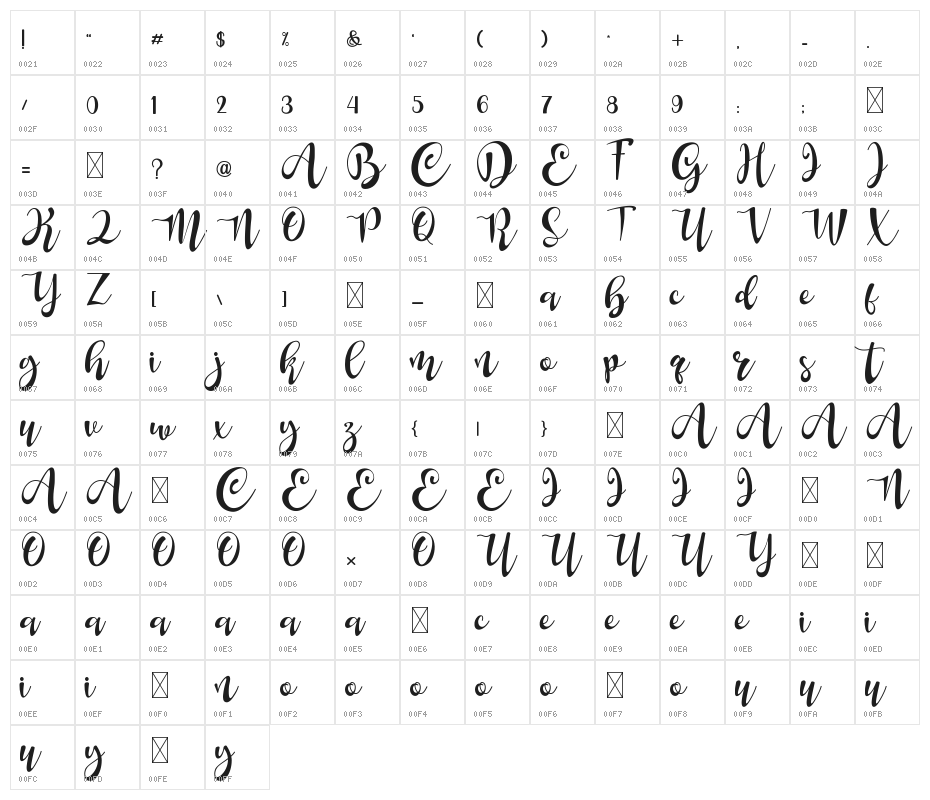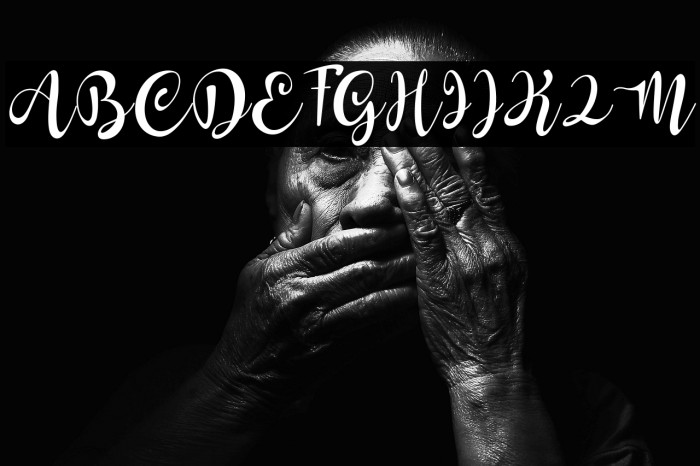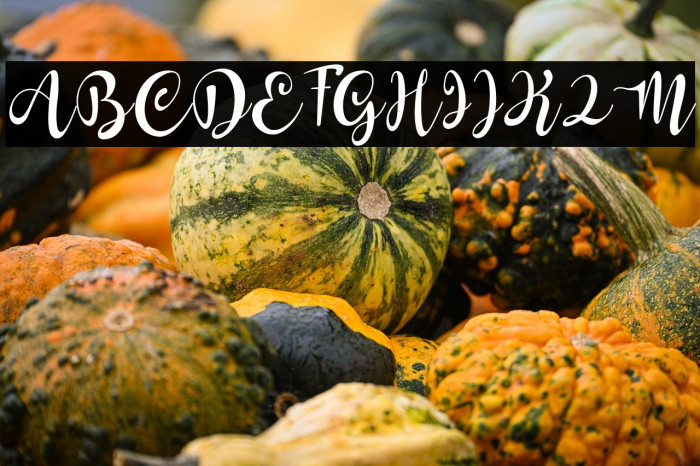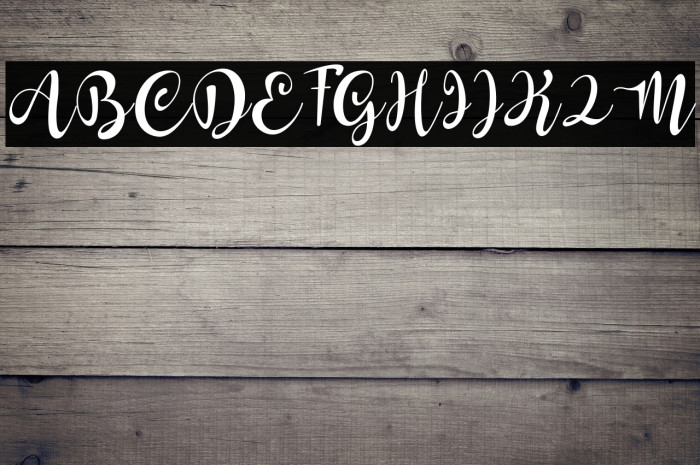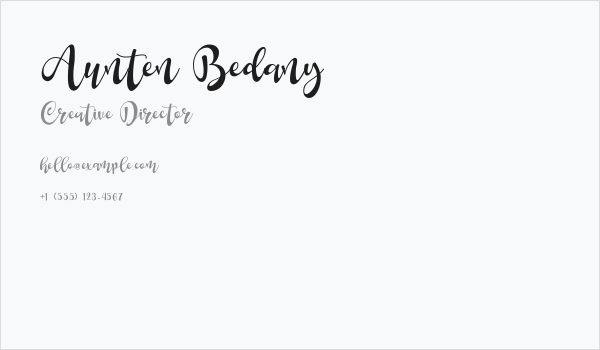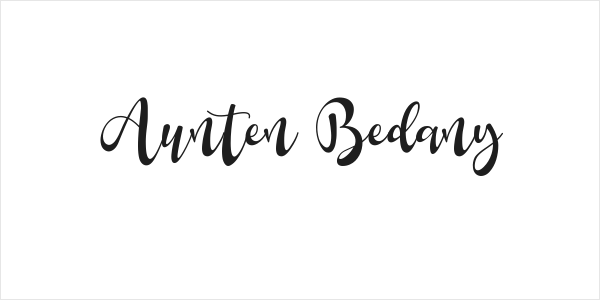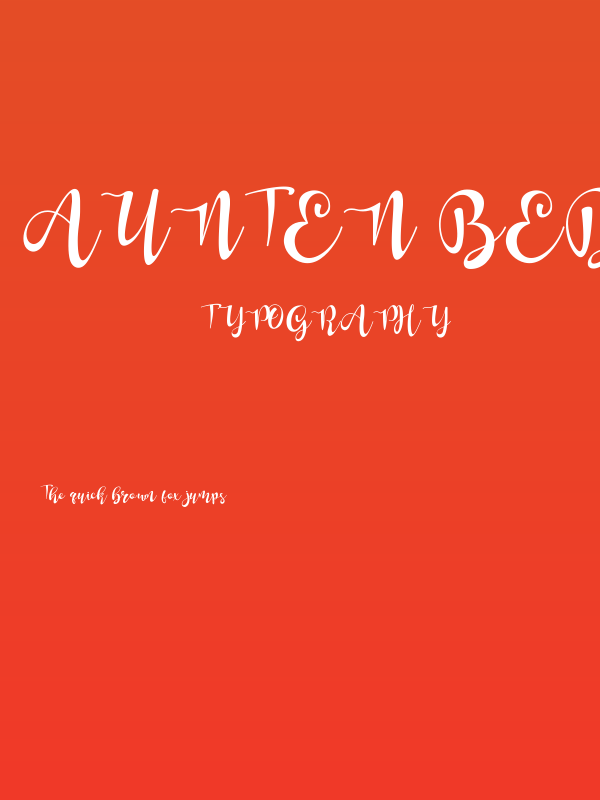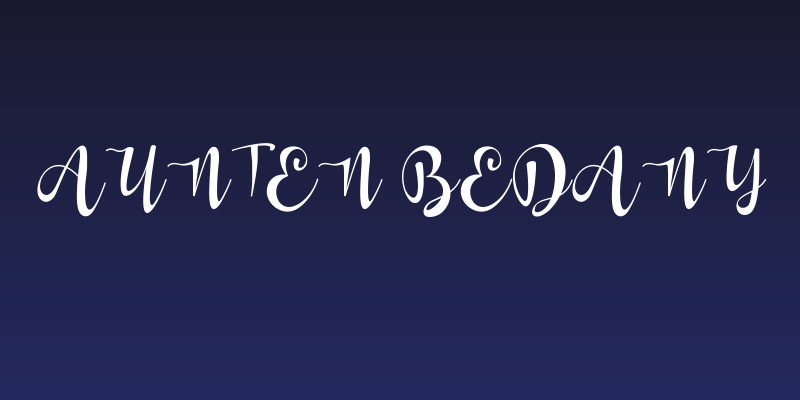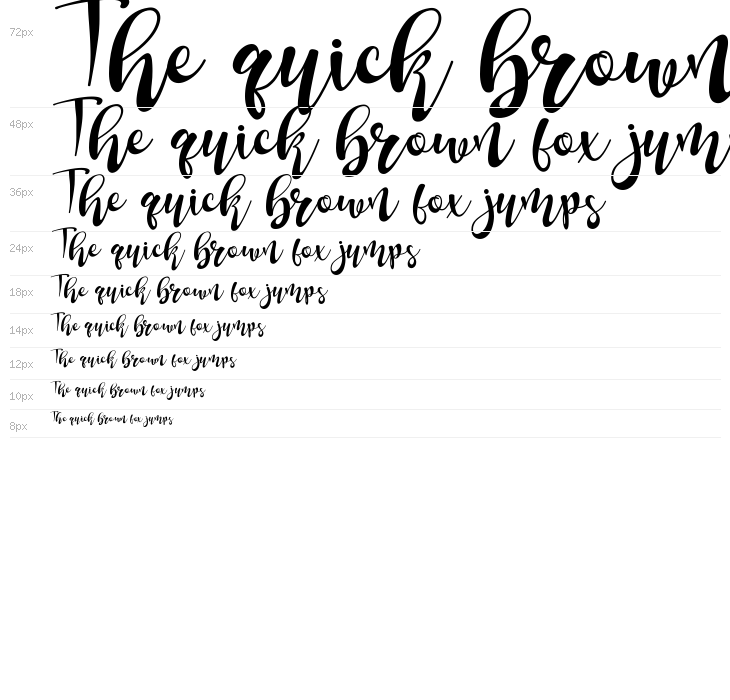
Aunten Bedany Font
Aunten Bedany Description
This font features a dynamic and flowing script style, characterized by its elegant curves and fluid strokes. The uppercase letters exhibit a graceful and sophisticated appearance, with each character seamlessly connecting to the next. The lowercase letters maintain a consistent rhythm, enhancing the font's overall harmony. The numerals are clear and legible, complementing the script style without overpowering it. Special characters are thoughtfully designed, maintaining the font's cohesive aesthetic. This font is ideal for projects that require a touch of elegance and personality.